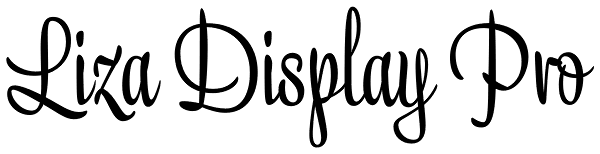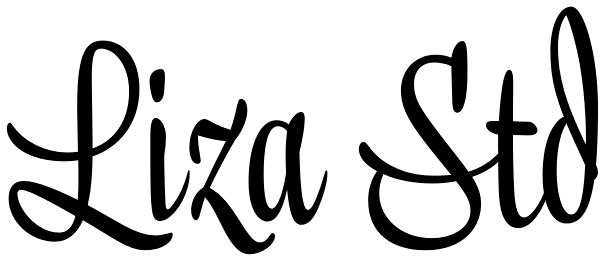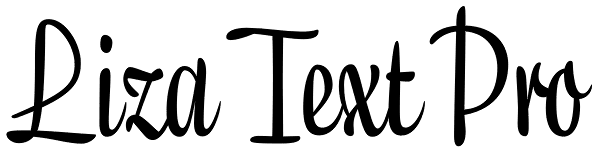
Liza Pro
Lettres d’amour! Flirting, fashionable, provocative, emotional, casual, moderate, extremely sensible & beautiful - Liza Pro covers it all. Liza Pro, Underware’s dear creation, is a live-script typeface. Thanks to its extremely intelligent OpenType...